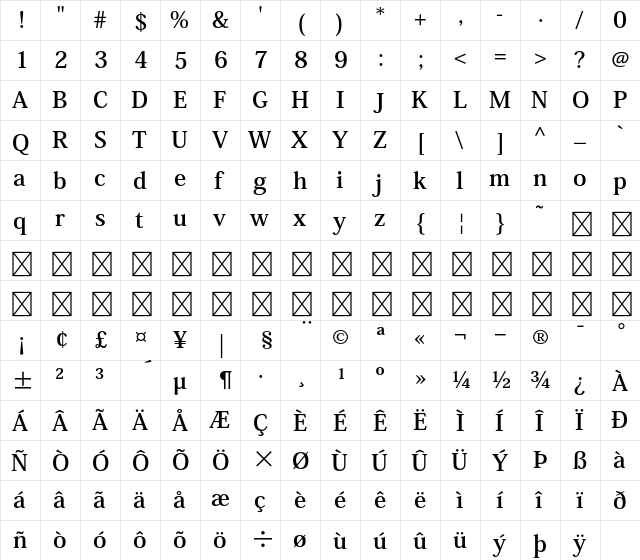
Heisei Mincho Std W7
Design Context for Heisei Mincho Std Typeface
Heisei Mincho Std takes a measured approach to typography — its balanced proportions and neutral character make it a reliable workhorse for both digital and print work.